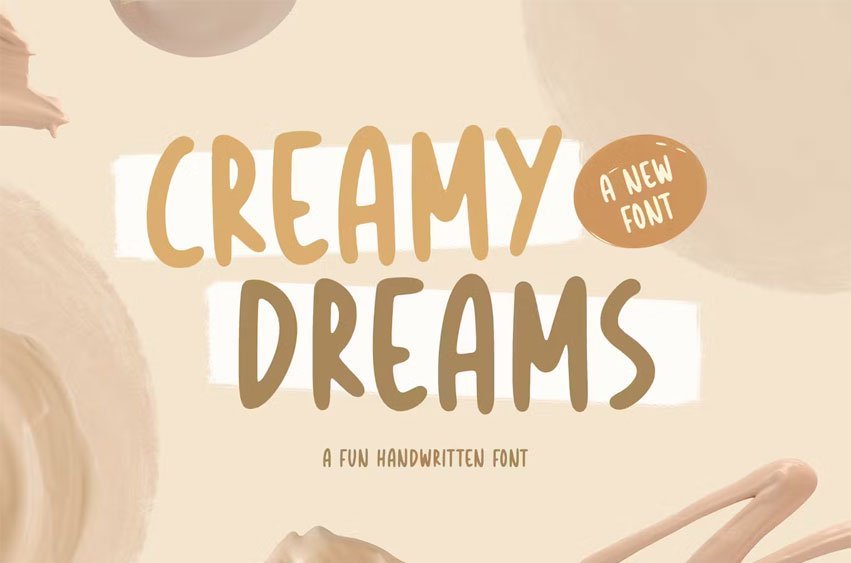
Creamy Dreams Font is A Handwritten Script Font, which was created with great care and specially created for you.
Creamy Dreams is perfect for product packaging, branding project, megazine, social media, wedding, or just used to express words above the background.